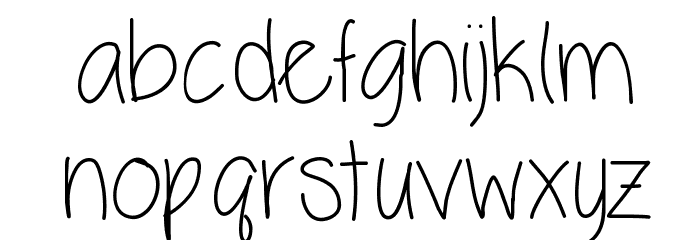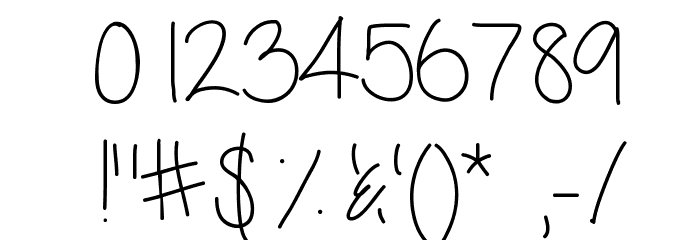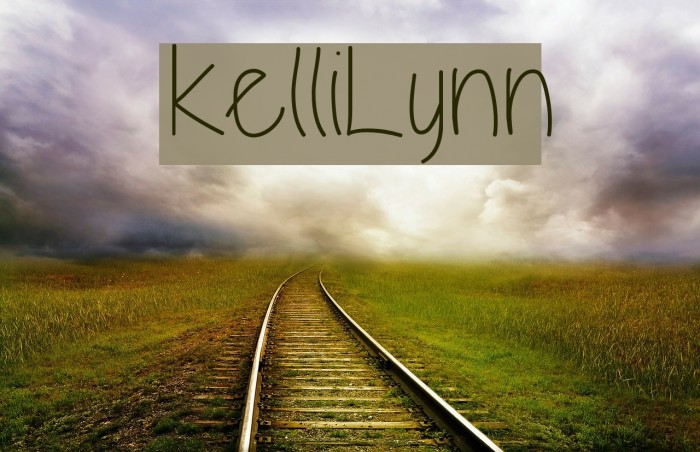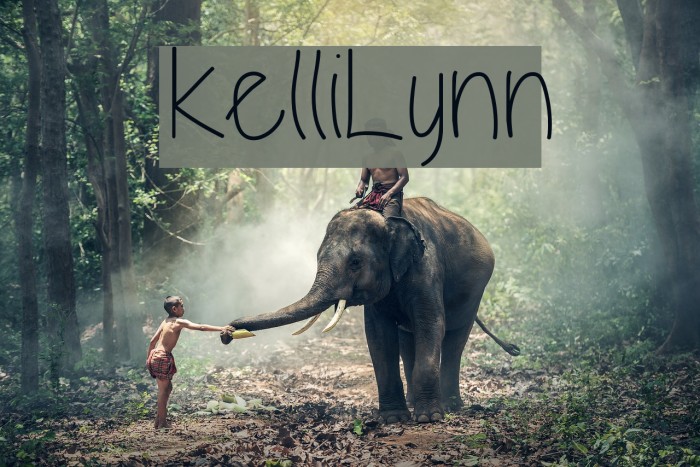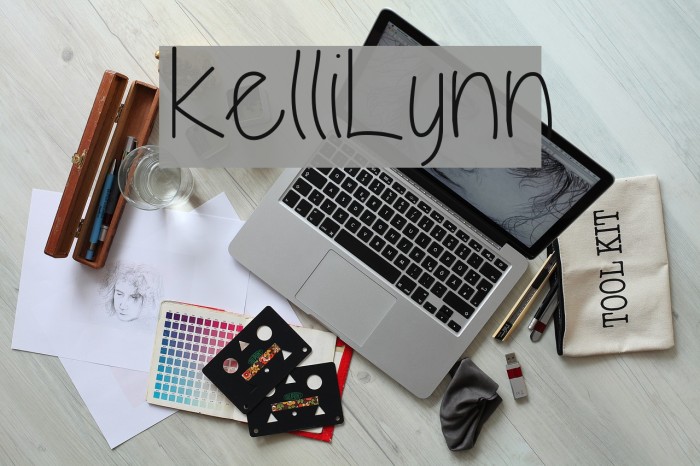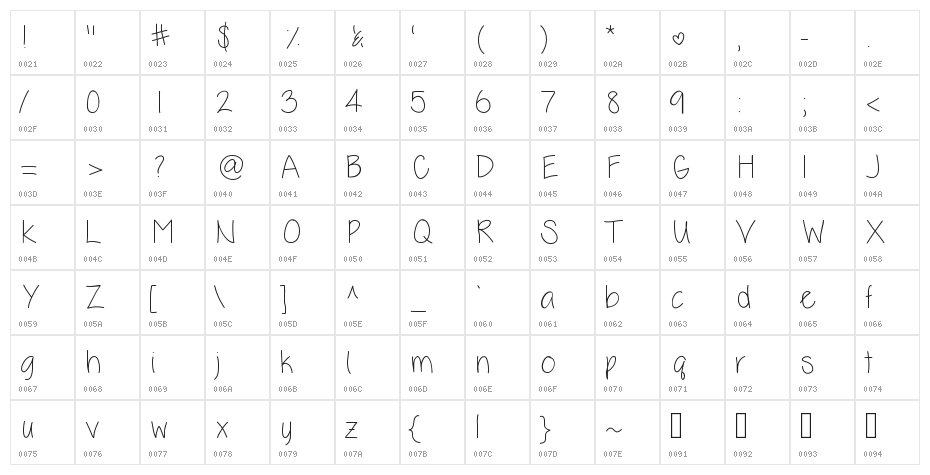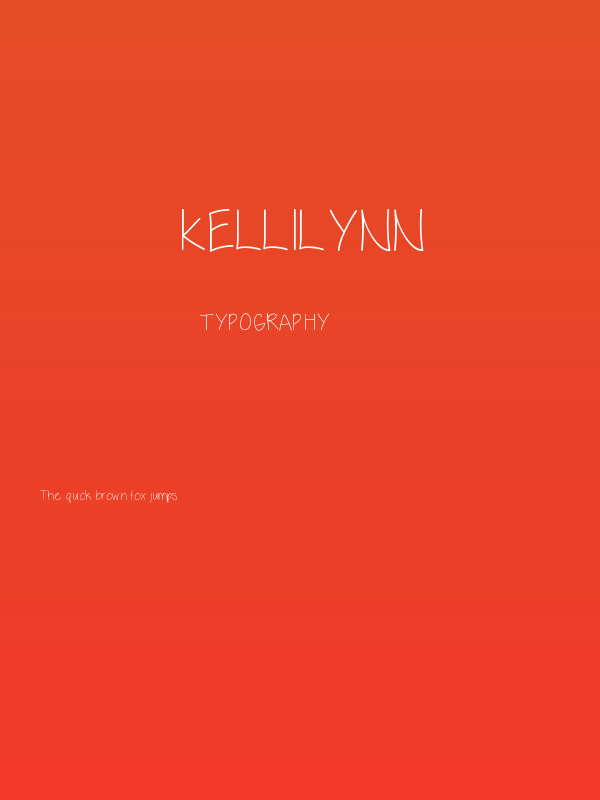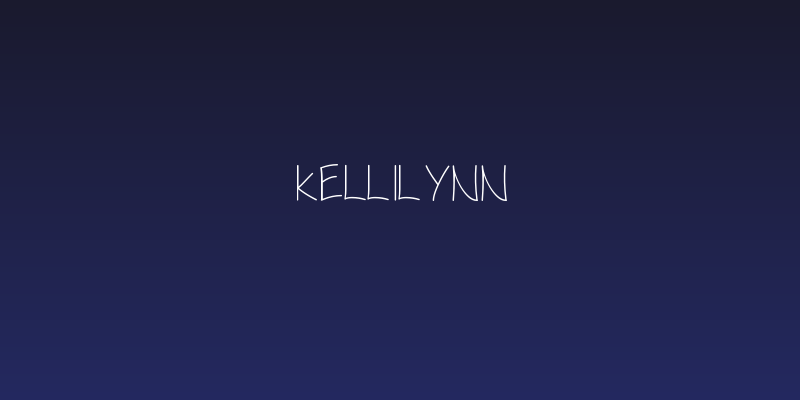
KelliLynn Font
This font features a playful and casual handwritten style, characterized by its thin, slightly uneven strokes that give it a personal touch. The letters are tall and narrow, with a consistent height across both uppercase and lowercase characters. The font maintains a friendly and approachable appearance, making it suitable for informal contexts. The numerals and special characters are designed to match the overall aesthetic, ensuring a cohesive look. The font's simplicity and legibility make it versatile for various design projects.
A playful, handwritten font with thin, uneven strokes and a casual style.
- Proposed Projects: Ideal for greeting cards, personal blogs, children's books, and casual branding projects.
- Overall Style: Casual
- Use Case: Headlines, Informal text, Personal projects